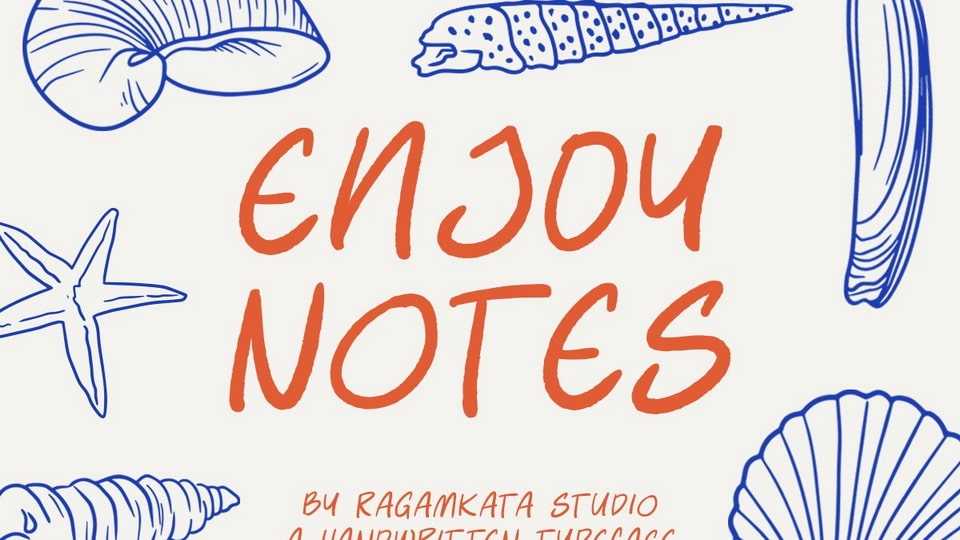
Enjoy Notes Font › Fontesk – Download Grátis
Download Enjoy Notes font, an ultra natural-looking handwritten typeface. Designed to look casual and carefree, but with business to take care of.